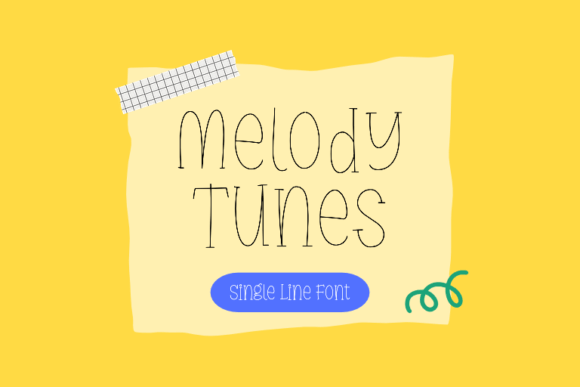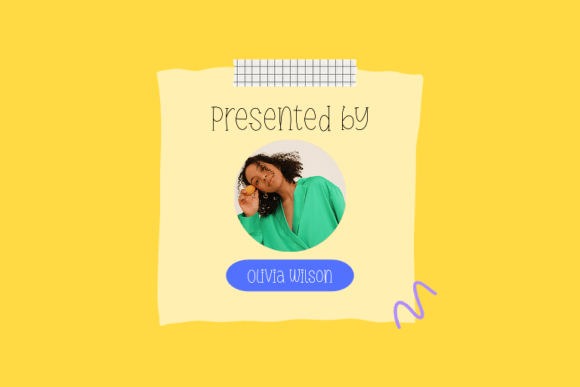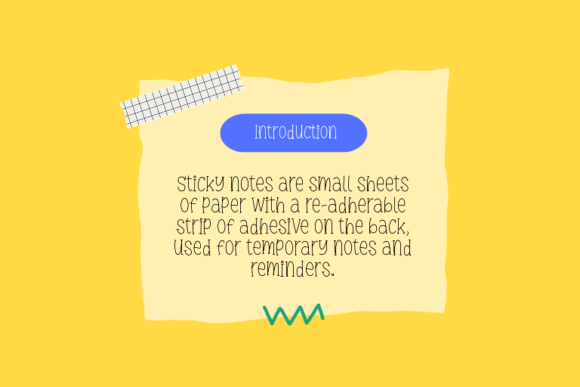
Melody Tunes Font
Melody Tunes is a quirky and whimsical handwritten font. This font is full of personality and charm. The letters are slightly irregular, with playful curves and unexpected details that make them stand out. Its friendly and approachable design makes it perfect for children’s books, packaging, or any project that requires a touch of whimsy.